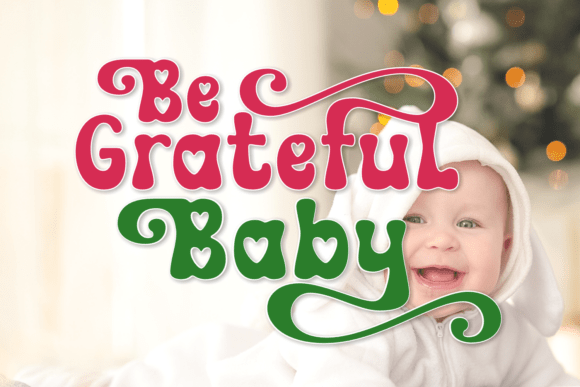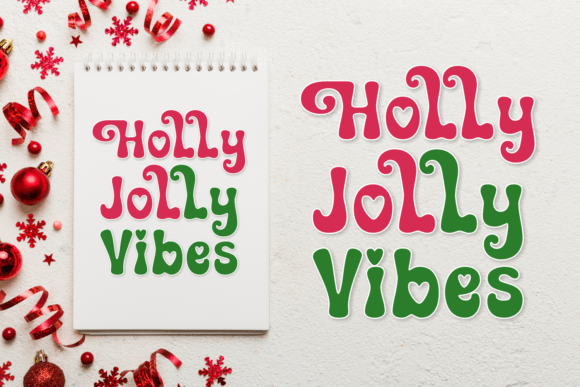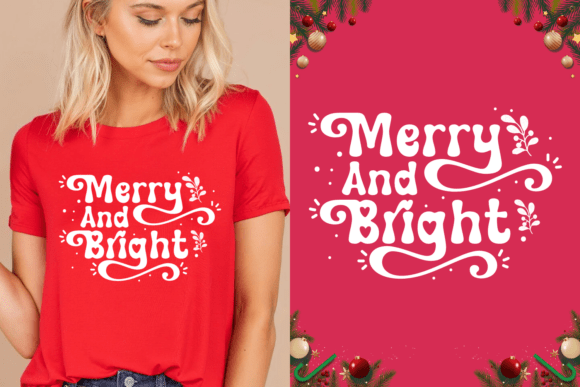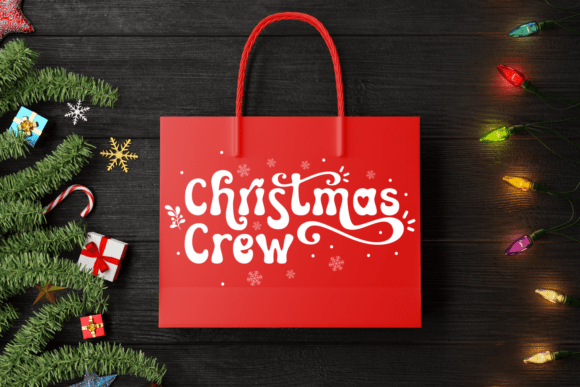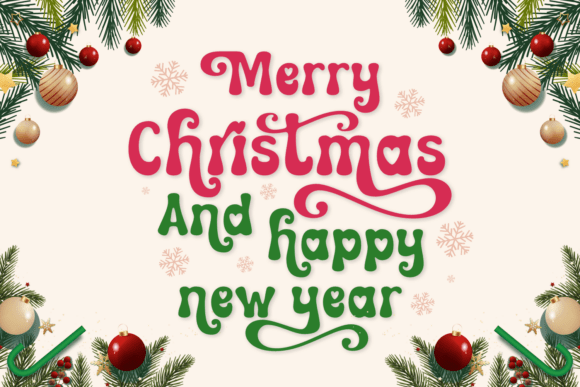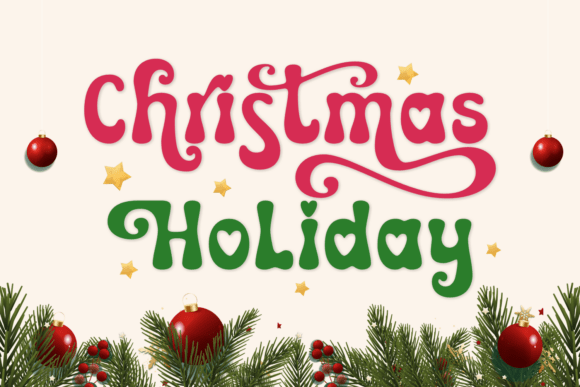
Unwrap the Magic of Christmas with “Christmas Longing” Font
Ah, the holiday season. A time for sparkling snowflakes, warm cups of hot cocoa, and the quest for the perfect font to make your designs merry and bright. I recall a particularly stressful design project last December, where I was tasked with creating a festive holiday card for a client. The catch? It had to evoke the nostalgic charm of Christmases past. As I scrolled through font after font, none seemed to capture that special something – until I stumbled upon “Christmas Longing”.
A Font that Embodies the Spirit of Yesteryear’s Christmas
“Christmas Longing” is more than just a display font; it’s a ticket to a winter wonderland of nostalgia and playfulness. Its retro charm seamlessly blends merry and playful elements, creating a unique structure that boasts an authentic, round appeal. This font is perfect for designers, crafters, and creative hobbyists looking to add a warm, quirky touch to their holiday greeting cards, apparel designs, packaging projects, and more.
What I Love About “Christmas Longing” ✨
• ✅ Retro Charm: The font’s vintage appeal is perfect for creating designs that feel like they were plucked straight from a holiday card from the 1950s.
• ✅ Multilingual Support: With its extensive language support, “Christmas Longing” is an excellent choice for designers working with clients from diverse cultural backgrounds.
• ✅ Clean Lines and Smooth Swashes: The font’s readability and stylish appeal make it ideal for book covers, quotes, magazine layouts, and branding designs.
• ✅ Easy to Read: Despite its decorative nature, “Christmas Longing” remains clear and legible, even at smaller font sizes.
• ⚠️ Glyph Overload: With so many glyphs and swashes available, it can be overwhelming to navigate the font’s full potential. Take some time to explore the OpenType features to get the most out of “Christmas Longing”.
• ⚠️ Not Suitable for Body Text: While “Christmas Longing” is perfect for headlines and titles, its decorative nature makes it less suitable for longer blocks of text.
The Story Behind “Christmas Longing”
The story goes that the designer behind “Christmas Longing” was inspired by vintage holiday cards and wanted to create a font that captured the essence of a bygone era. With its unique blend of retro charm and playfulness, “Christmas Longing” is the perfect font for designers looking to add a touch of nostalgia to their designs.
Q: What type of designs is “Christmas Longing” best suited for?
A: “Christmas Longing” is perfect for holiday greeting cards, apparel designs, packaging projects, book covers, and quotes.
Q: Is “Christmas Longing” easy to read?
A: Yes, despite its decorative nature, “Christmas Longing” remains clear and legible, even at smaller font sizes.
Q: Does “Christmas Longing” support multilingual text?
A: Yes, “Christmas Longing” comes with extensive language support, making it an excellent choice for designers working with clients from diverse cultural backgrounds.